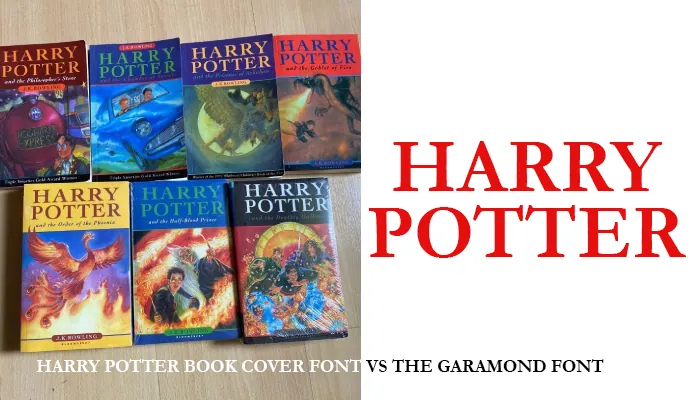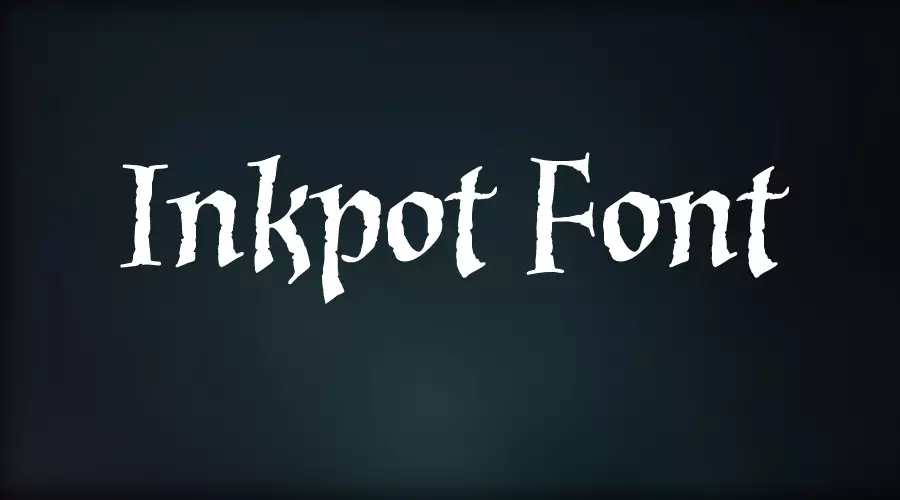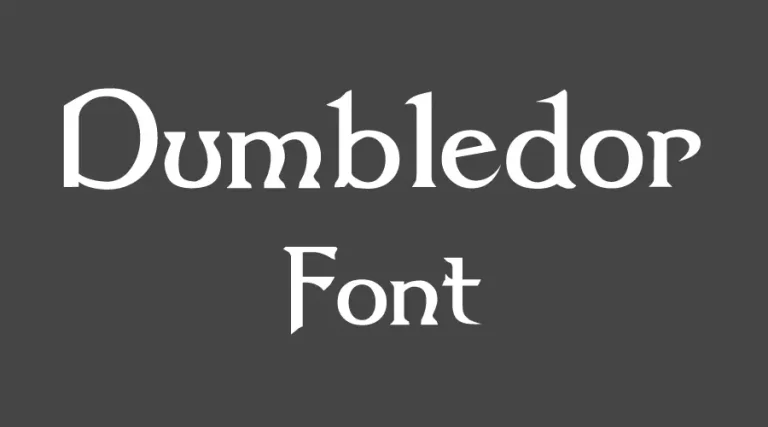
The Harry Potter series is full of iconic imagery, from Hogwarts Castle to the Golden Snitch. But one aspect of the series that is often overlooked is the use of fonts. The fonts used in the Harry Potter books, movies, and logos play an important role in creating the magical and whimsical atmosphere of the wizarding world.
There are many similar, replica, and inspired Harry Potter fonts available, each with its own unique characteristics. Some of the most popular Harry Potter fonts include:
- Harry Potter Movie Fonts: These fonts are based on the fonts used in the Harry Potter movies, and include Harry Potter, Sorcerer’s Stone, and Chamber of Secrets.
- Harry Potter Book Fonts: These fonts are based on the fonts used in the Harry Potter books, and include JKR Rowling, Bloomsbury, and Scholastic.
- Harry Potter Inspired Fonts: These fonts are inspired by the Harry Potter universe, and include Lumos, Magik, and Hogwarts.
Best Harry Potter Movie Fonts
The Harry Potter movies are known for their iconic visuals, including their use of typography. The fonts used in the logos and subtitles of the films play an important role in creating the magical and whimsical atmosphere of the wizarding world.
Here are some fonts similar to Harry Potter movie title logo fonts, along with their names, sources, and examples of how they have been used in the films
Harry P Font
This is the most similar font to Harry Potter movie logo created by Phoenix Phonts. The font has a Gothic style with sharp serifs and decorative swirls. You can download it for free from here. It is a custom-designed font that is based on the film logo, but with more variations and details. This is a TrueType fancy font with 110 glyphs and 95 characters.
Harry Potter Font
There is another similar font called “Harry Potter by Fontomen.” The font was published in 2001 by the designer Jenny Barck. It is a freeware, non-commercial font that you can use. It’s a TrueType font with 63 glyphs and 60 characters.
Parry Hotter Font
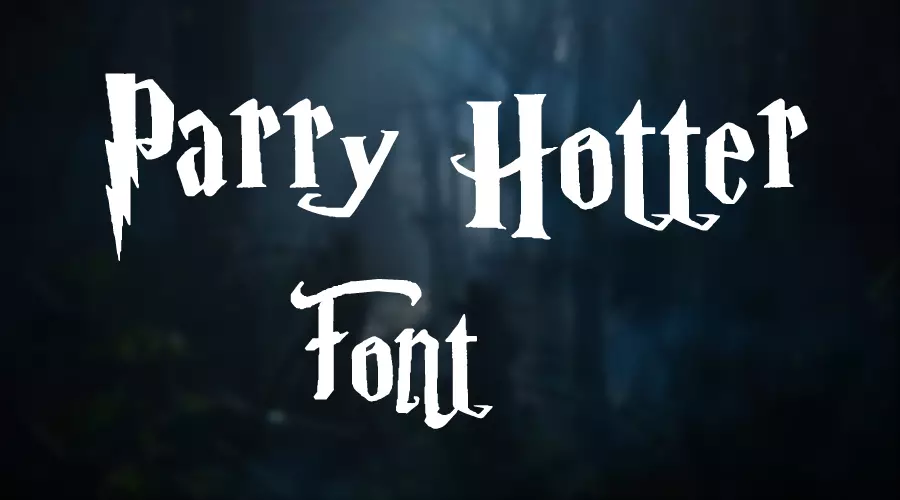
This is a font inspired by the logo of the Harry Potter movies, but with a more playful and cartoonish look. It was created by Anke-Art in 2001. It’s a shareware and donationware font. You can download it for free from here.
Magic School Font
This is a font inspired by the Hogwarts School of Witchcraft and Wizardry, where Harry Potter and his friends study magic. It was created by the designer Michael Hagemann of FontMesa and is based on the typeface Cloister Black, designed by Morris Fuller Benton. The font has a medieval and Gothic style with ornate capitals and flourishes. It is available in two styles: regular and two.
Harry Potter and the Dingbats Font
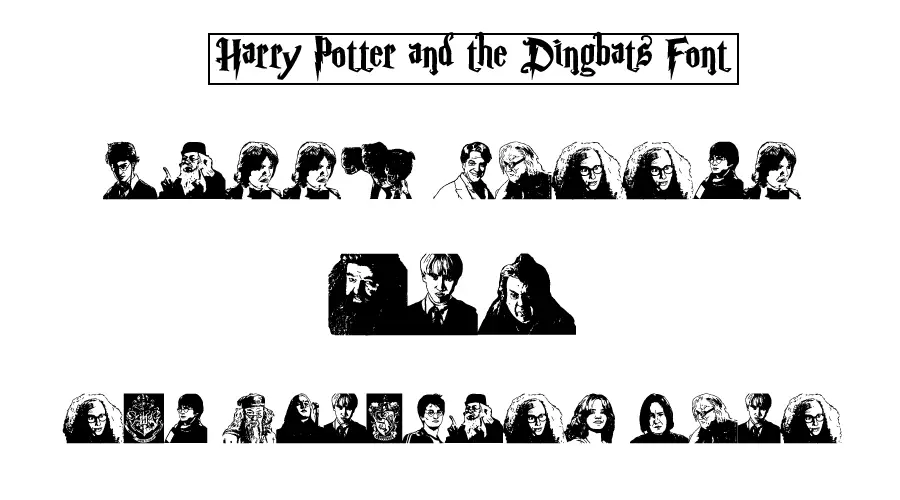
David Martin of 24hourfonts designed this unique stencil typeface in 2005. This Harry Potter movie-based Dingbats font has all the character designs and main logo title designs so you can use them in your project.
HarryPotter7 Font
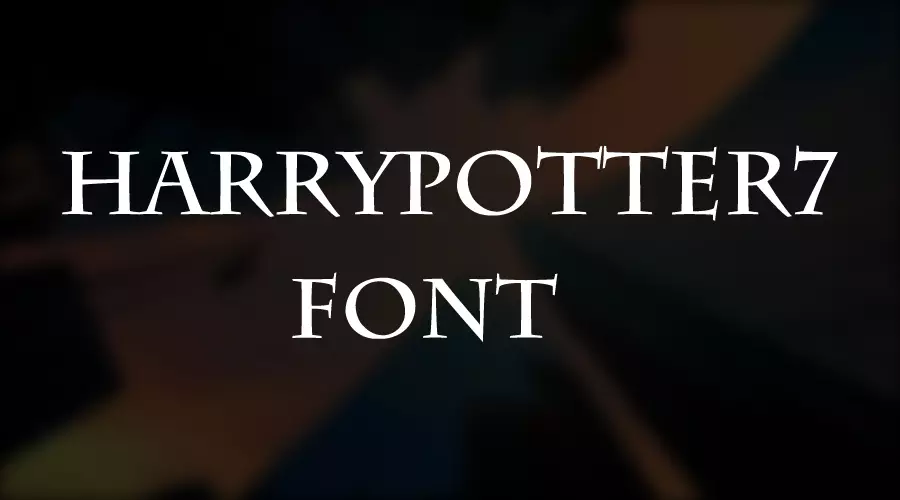
This font is inspired by the Harry Potter Saga, designed by FZ Fonts and published in 2010. It has 236 glyphs and 240 characters.
Legendary Runes Font
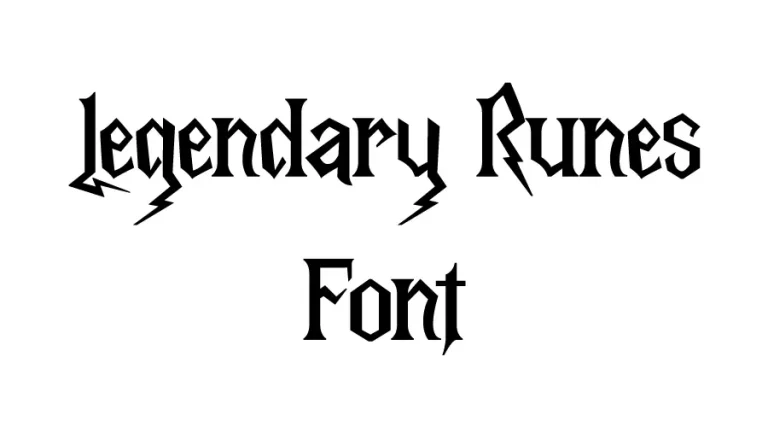
The Legendary Runes font is a popular Harry Potter-inspired typeface by Typefactory, perfect for fantasy and magic-themed projects. It offers a complete set of letters, numbers, and symbols, making it versatile for various designs.
Wizard World Font
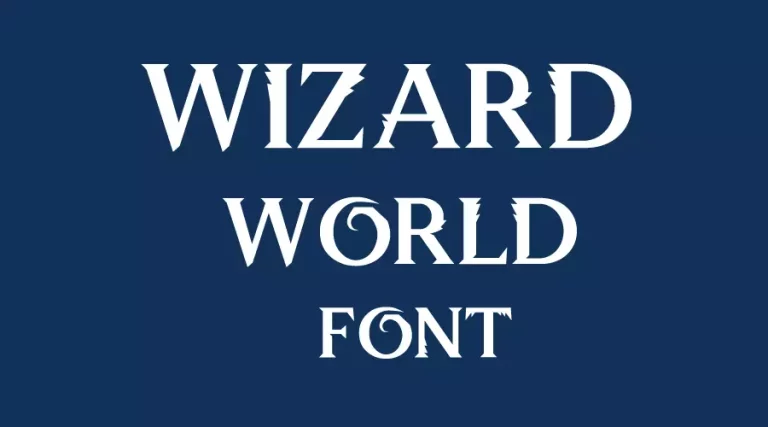
Wizard World Font, copyrighted by J.K. Rowling and Warner Bros., is a magical font with unique uppercase letters and alternatives. It’s suitable for creating headings, logos, and other projects with a magical touch.
Crimes of Grindelwald Font
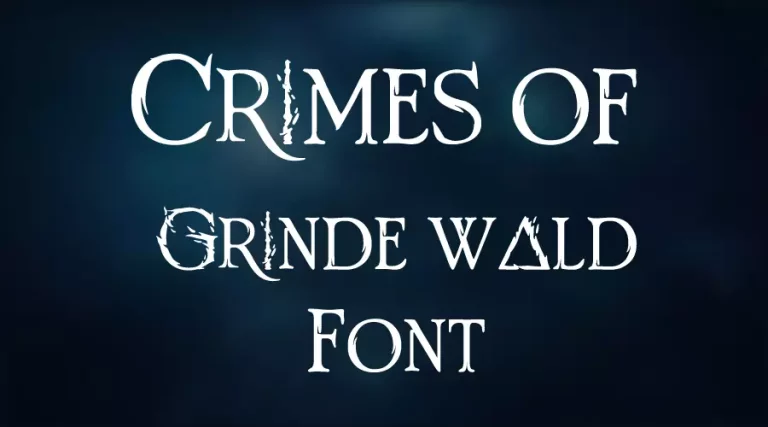
This is a font that matches the logo of the second movie in the Fantastic Beasts series, which is a spin-off of Harry Potter. It has a vintage and elegant style with ornate details and flourishes. It was created by Franco Fernandez.
HogwartsWizard Font
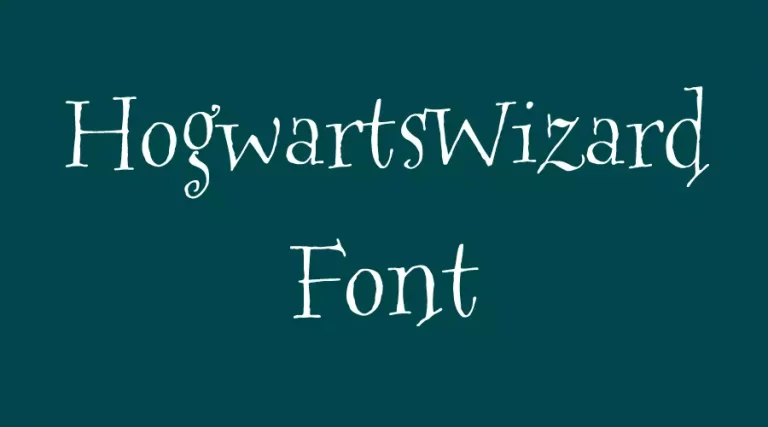
HogwartsWizard font, based on the style of Connie Smiley and commissioned by Warner Brothers, adds fantasy and wonder to projects. It includes uppercase and lowercase letters, symbols, and punctuations, but no licensing information is available, so it’s recommended for personal use only.
Harry Potter Book Fonts
There are a few different font styles used in the Harry Potter novels, from cover pages to character names. The publisher and design team used different fonts for chapter titles and other elements. Here are some replica or similar fonts.